Typography is one of the most powerful tools in design. The right font can tell a story, create an emotional connection, and set the tone for your project before a single word is read. But what if you want to push the boundaries? Enter freaky fonts—bold, unconventional typefaces that aren’t afraid to break the rules. These fonts are all about self-expression, creativity, and making a statement. Whether you’re aiming for something edgy, mysterious, or just downright quirky, freaky fonts offer a treasure trove of possibilities for designers looking to stand out.
So, what exactly is a freaky font? Think of it as a font with no rules. Freaky fonts are bold, quirky, distorted, and sometimes downright weird. These fonts play with form, often bending letters, distorting proportions, or adding odd details that make them stand out from traditional fonts.
They've evolved alongside the digital age when designers started breaking away from the constraints of classic typography to experiment and have fun with letterforms. But freaky fonts aren’t just a modern trend — think back to old horror movie posters or funky 70s album covers, where the typography screamed for attention.
Let’s break down some popular categories of freaky fonts so you can recognize them when you see them:
Distorted Fonts: These fonts take traditional letter shapes and twist them into something new — wobbly, stretched, or irregular. Perfect for grabbing attention in unexpected ways.
Hand-drawn Freaky Fonts: As if scribbled by an eccentric artist, these fonts have a raw, handmade look. They’re often used in playful or casual designs where perfection isn’t the goal.
Glitch Fonts: Inspired by the digital age, glitch fonts mimic the look of malfunctioning technology. Think static lines or broken pixels within letters. They’re ideal for futuristic or tech-related designs.
Psychedelic Freaky Fonts: Flashback to the 60s and 70s with swirly, trippy letterforms that seem to move as you look at them. These fonts are bold, colorful, and perfect for retro-inspired designs.
Here are 15 must-have freaky fonts that will elevate your designs and add that touch of chaos, rebellion, or eeriness you’re looking for:
Impelord is a bold, edgy font with a grungy, horror-inspired aesthetic. Its sharp edges, jagged lines, and distorted shapes create a sense of danger and tension. This font is perfect for horror movie posters, Halloween decorations, heavy metal album covers, and tattoo designs.
The Deep font has a classic horror movie vibe with its bold, blocky letters and a distressed texture. The uneven edges and dripping effect add to its spooky atmosphere. This font is perfect for vintage horror posters, Halloween decorations, and any project that needs a retro, scary feel.
The Vision of Sorrow font has a gothic, horror-inspired aesthetic with its intricate, vine-like details and sharp, pointed edges. The letters are tall and narrow, with some characters having extended elements like the 'V' and 'S'. This font is perfect for horror movie posters, Halloween decorations, and any project that needs a dark, spooky vibe.
The Romanzo font has a vintage, retro horror movie vibe with its bold, blocky letters and a distressed texture. The uneven edges and dripping effect add to its spooky atmosphere. This font is perfect for vintage horror posters, Halloween decorations, and any project that needs a retro, scary feel.
The Infection font has a grotesque, biological horror aesthetic with its letters formed from writhing, organic shapes that resemble veins or parasites. The font's dark, disturbing style is perfect for horror movie posters, Halloween decorations, and any project that needs a truly unsettling vibe.
The Coven Fresh font has a retro horror movie vibe with its bold, blocky letters and a distressed texture. The uneven edges and dripping effect add to its spooky atmosphere. This font is perfect for vintage horror posters, Halloween decorations, and any project that needs a retro, scary feel.
The Horror Fables font has a spooky, gothic horror aesthetic with its tall, narrow letters and a distressed, bloody texture. The font's dark, ominous style is perfect for horror movie posters, Halloween decorations, and any project that needs a truly terrifying vibe.
October Sweets is a spooky, dripping font perfect for Halloween-themed designs. With its playful, melting effect, it brings a fun yet eerie vibe to posters, invitations, and other seasonal graphics. Ideal for adding a hauntingly sweet touch to your projects!
Social Glitch is a unique, edgy font featuring distorted, glitchy characters that add a digital, broken aesthetic. Perfect for tech, cyberpunk, and experimental designs, this font brings a chaotic, digital vibe to posters, album covers, and futuristic projects.
The Ona Mura font has a unique blend of gothic and Japanese influences, resulting in a distinctive and elegant style. The letters are tall and narrow, with intricate details and decorative flourishes. This font is perfect for vintage-inspired designs, book covers, and any project that needs a touch of historical charm.
The Beauty Glitch font features a bold, blocky design with glitch effects that add a digital, distorted look to each letter. This display typeface is perfect for projects requiring a futuristic, cyber-inspired style, such as tech-themed designs, video game graphics, or sci-fi posters. The font includes uppercase and lowercase letters, numerals, and various punctuation marks, all with unique glitchy overlays that give them a dynamic and edgy appearance.
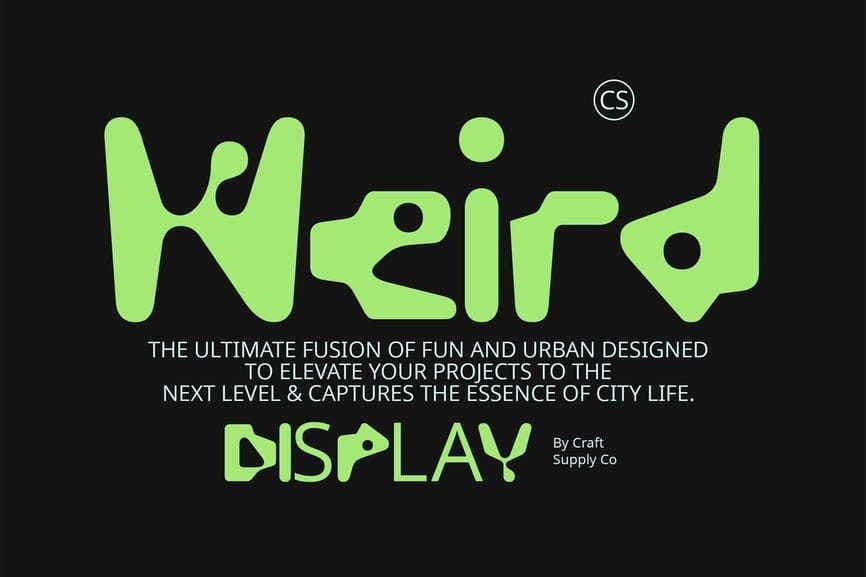
This unique typeface features irregular, blob-like shapes for each letter, capturing the essence of city life in a fun and modern way. Perfect for headlines, posters, and any design that needs a burst of creativity, Weird Display elevates your work to the next level with its bold and unconventional style.
The Pandora typeface showcases a modern and geometric aesthetic with unique shapes and clean lines. This font family features multiple "episodes" or styles, each offering a slightly different take on the core structure of the letters. The variations allow for flexibility in design, ranging from minimalist and futuristic to slightly experimental letterforms, making it suitable for branding, logos, sci-fi themes, and digital interfaces. Its evolving, modular look adds an adaptable, progressive edge to any project, especially those seeking a contemporary and innovative feel.
The Yavome typeface offers a bold, experimental take on modern serif fonts. With a distinct "weird" serif style, Yavone features highly stylized, chunky letterforms that create a striking, almost theatrical look. This font is versatile in its design, presenting options for both solid and outlined text, along with a variety of OpenType features, including ligatures and alternates. Yavone's quirky elegance makes it ideal for branding, headlines, and high-impact design applications where a unique, avant-garde aesthetic is desired.
This typeface is a highly stylized, modern display font with organic, flowing shapes that create a unique, fluid appearance. Designed by Zarma Type Foundry, it has a playful and artistic quality, making it ideal for eye-catching headlines, posters, and graphic design projects where a sense of movement and expressiveness is desired. The bold, exaggerated curves and abstract forms give it a distinct and memorable look, suitable for branding or creative projects that seek to stand out with a fresh, unconventional aesthetic.
Now that you’ve got the scoop on freaky fonts, how do you use them without going overboard? Here are a few tips to help you navigate the freaky font world:
Less is more: Freaky fonts are loud by nature, so use them sparingly. They work best as display fonts for headings or short text, not for body copy.
Pair wisely: Balance is key. If you’re using a freaky font, pair it with something simple and clean like a sans-serif to avoid overwhelming the design.
Stay on theme: Make sure the freaky font fits the vibe of your project. A playful hand-drawn font might work for a children’s party invite, but a glitch font could look out of place.
The possibilities for using freaky fonts are endless, but here are some ideas to get your creative juices flowing:
Social Media: Want your posts to stand out in someone’s never-ending feed? Try using a freaky font for headlines or quotes in your graphics. They’re sure to grab some extra attention.
Marketing Materials: Whether it’s a flyer for an event or a bold new logo, a freaky font can inject some much-needed energy into your branding.
Personal Projects: Got a party invite, poster, or DIY project that needs a fun twist? A freaky font is perfect for adding some playful personality to personal designs.
To create a freaky font on Instagram, you can use third-party apps or websites that generate unique and unconventional fonts. Here's how you can do it:
Go to a font generator website like LingoJam, CoolText, or FontsForInstagram.
Type your desired text, and the tool will convert it into various freaky fonts, including glitch, distorted, or abstract styles.
Once you've selected the font you like, simply copy the text.
Open Instagram and paste the freaky font into your bio, captions, or stories.
Use Design Apps:
Alternatively, apps like Canva, PicsArt, or Over offer creative text effects and freaky font styles. Design your text there, save it as an image, and upload it to Instagram.
This method lets you easily personalize your Instagram profile or posts with fun, attention-grabbing typography!
Freaky fonts are a great way to inject creativity and personality into your projects. They break the rules of traditional typography, offering designers a way to stand out and make a bold statement. Whether you're designing for a rebellious fashion brand, a mysterious horror movie, or just want to shake up your usual design routine, freaky fonts can help you unleash your creative potential.
Don’t be afraid to experiment—pair freaky fonts with more readable options, consider your audience carefully, and most importantly, have fun with it. If you’re looking for a place to start, there are tons of free and premium freaky fonts available online. Dive in and see how a little typographic weirdness can take your designs to the next level